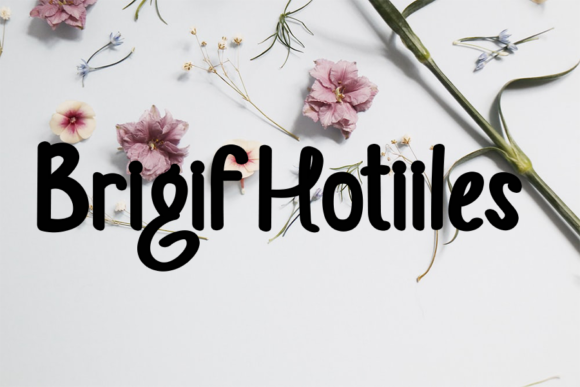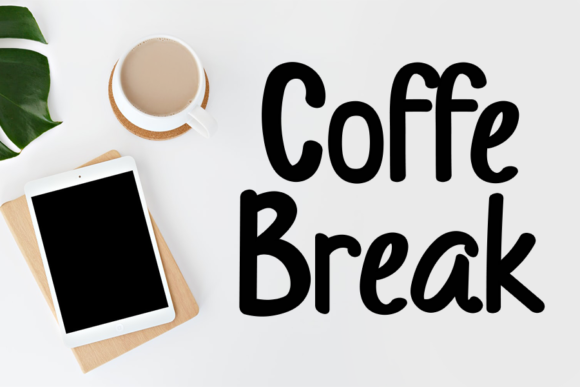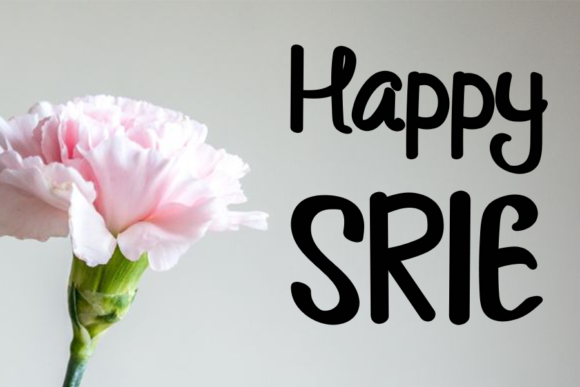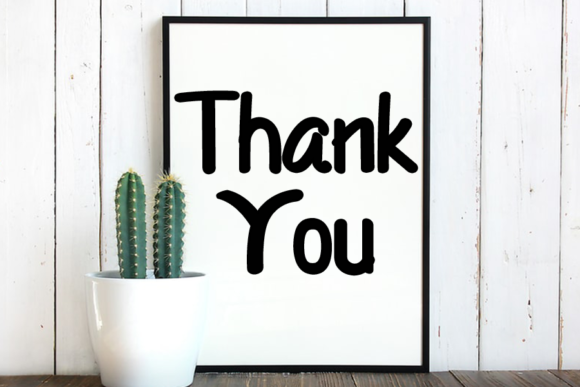
Helligrounds Font: The Friendly and Cute Handwritten Font for Your Creative Projects
Are you a designer, crafter, or DIY enthusiast looking for a font that can add a personal touch to your creative projects? Look no further than Helligrounds Font! This cute and casual handwritten font is designed to bring a friendly feel to any design, making it perfect for a wide range of applications, from Instagram posts to calligraphy scripts.
What is Helligrounds Font?
Helligrounds Font is a carefully crafted handwritten font that exudes warmth and friendliness. Its unique and playful design makes it an excellent choice for anyone looking to add a personal touch to their creative projects. Whether you’re working on a DIY project, designing social media graphics, or creating calligraphy scripts, Helligrounds Font is the perfect companion.
Key Features of Helligrounds Font
- Cute and Casual Design: Helligrounds Font boasts a playful and informal design that’s perfect for creating friendly and approachable graphics.
- Handwritten Style: This font features a beautiful handwritten style that’s reminiscent of calligraphy, making it perfect for DIY projects and crafty designs.
- Incredibly Friendly Feel: The font’s design is carefully crafted to evoke a sense of warmth and friendliness, making it perfect for designs that require a personal touch.
- Versatile: Helligrounds Font can be used for a wide range of applications, from social media graphics to calligraphy scripts, and even DIY projects.
Use Cases for Helligrounds Font
Helligrounds Font is an incredibly versatile font that can be used for a wide range of creative projects. Here are some use cases to get you started:
- Instagram Graphics: Add a personal touch to your Instagram posts and stories with Helligrounds Font. Create engaging graphics that showcase your personality and style.
- Calligraphy Scripts: Use Helligrounds Font to create beautiful calligraphy scripts for DIY projects, such as wedding invitations, greeting cards, and more.
- DIY Projects: Helligrounds Font is perfect for DIY enthusiasts who want to add a personal touch to their projects. Use it to create custom labels, signs, and more.
- Branding and Marketing: Use Helligrounds Font to create friendly and approachable branding and marketing materials, such as logos, brochures, and business cards.
Tips for Using Helligrounds Font
Here are some tips to help you get the most out of Helligrounds Font:
- Experiment with Different Sizes: Helligrounds Font looks great in a variety of sizes, from small and delicate to large and bold. Experiment with different sizes to find the one that works best for your design.
- Pair with Other Fonts: Helligrounds Font pairs well with other fonts, especially sans-serif fonts. Experiment with different font combinations to create a unique and interesting design.
- Use for Headings and Titles: Helligrounds Font is perfect for headings and titles, where you want to make a bold and friendly statement.
Helligrounds Font is a cute and casual handwritten font that’s perfect for designers, crafters, and DIY enthusiasts. Its friendly and approachable design makes it an excellent choice for a wide range of creative projects, from Instagram graphics to calligraphy scripts. With its versatility, key features, and ease of use, Helligrounds Font is sure to become a favorite in your design toolkit.